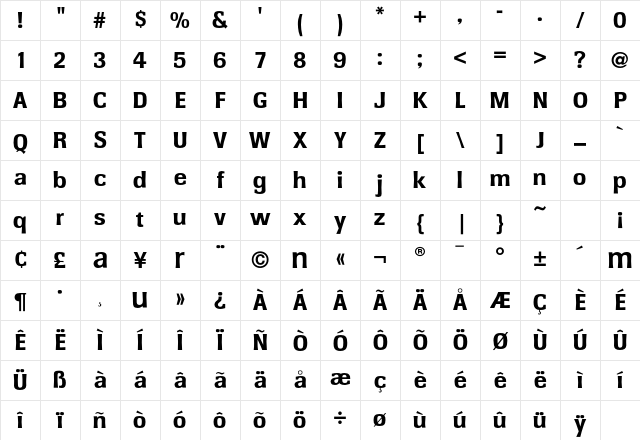
Cartel-Dem i
Style: i
Design Context for Cartel-Dem
Cartel-Dem is a composed and adaptable typeface that performs quietly and consistently across a wide range of design contexts.
Pro Tip: Use Cartel-Dem in both headline and body roles to test its range before committing to a single application.